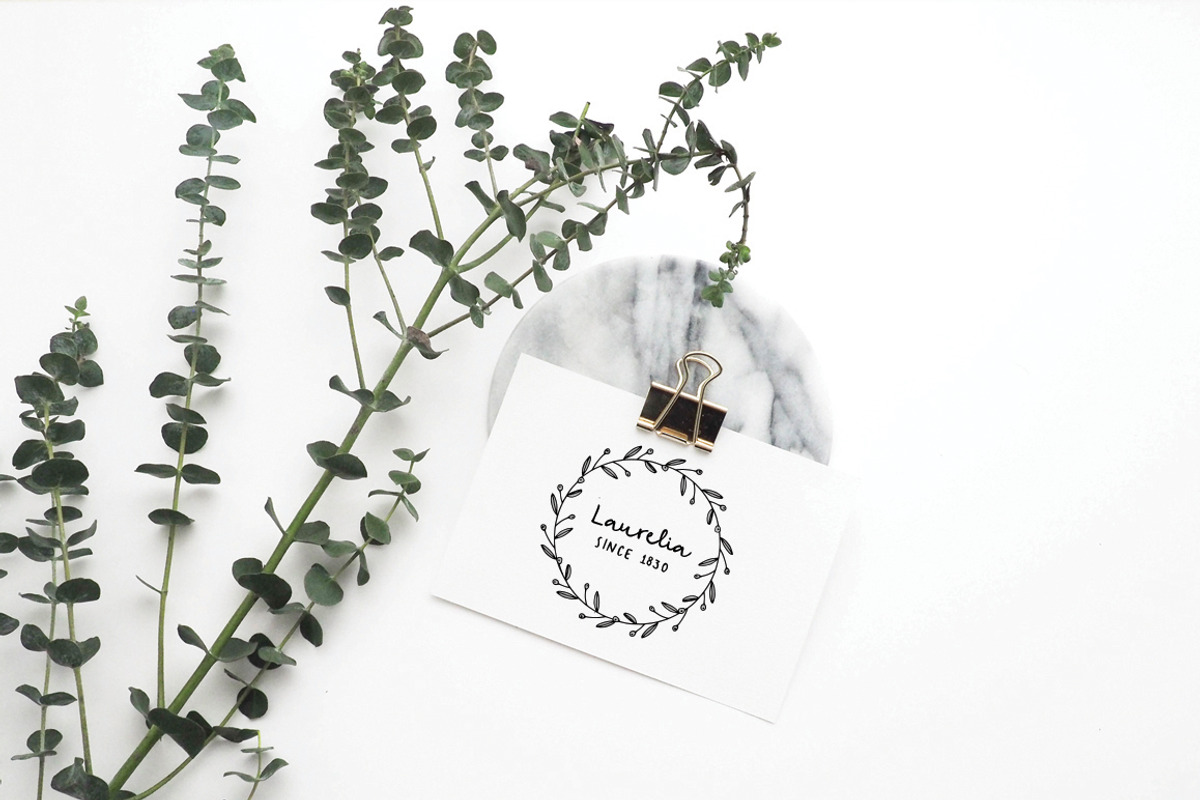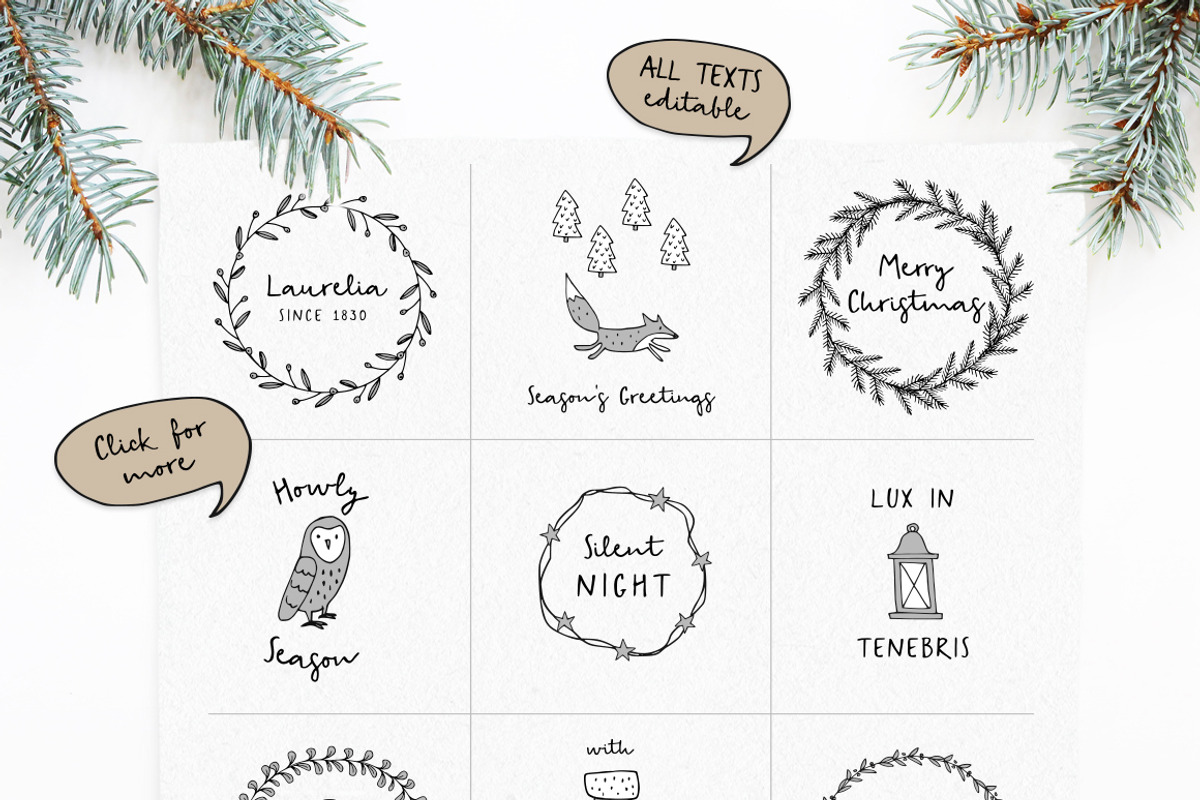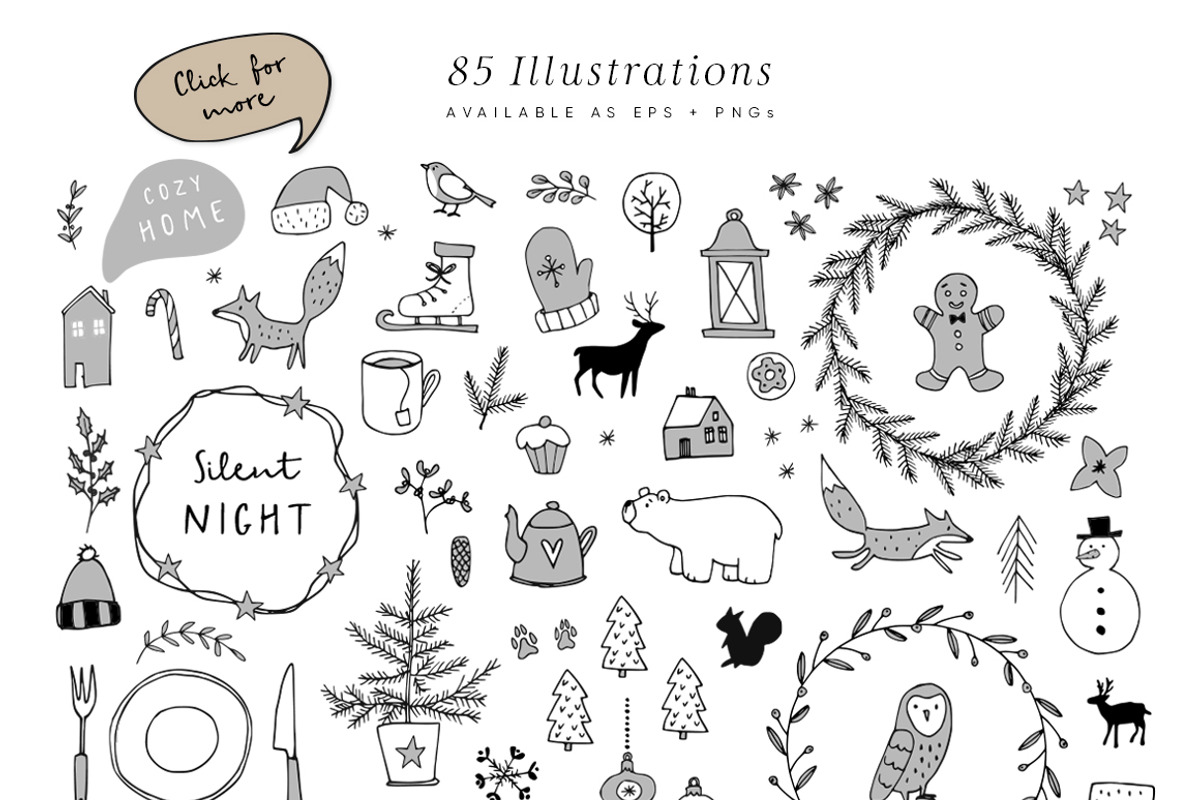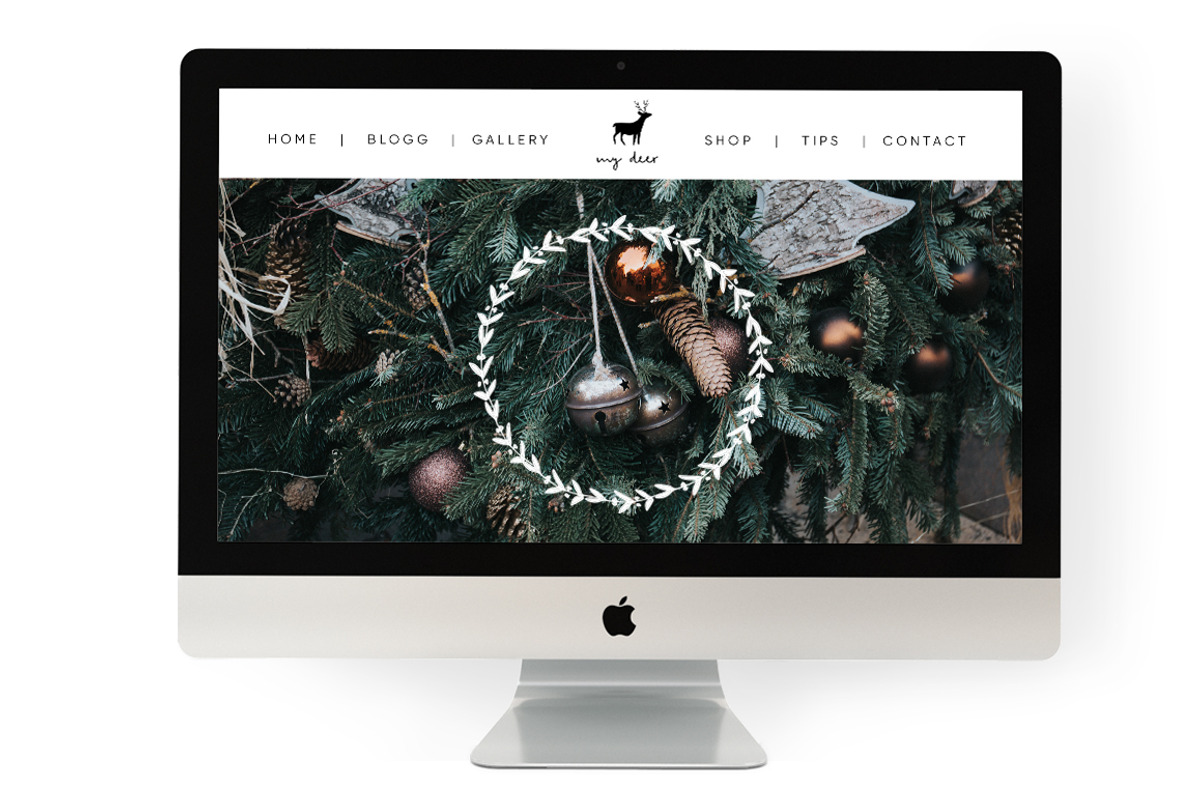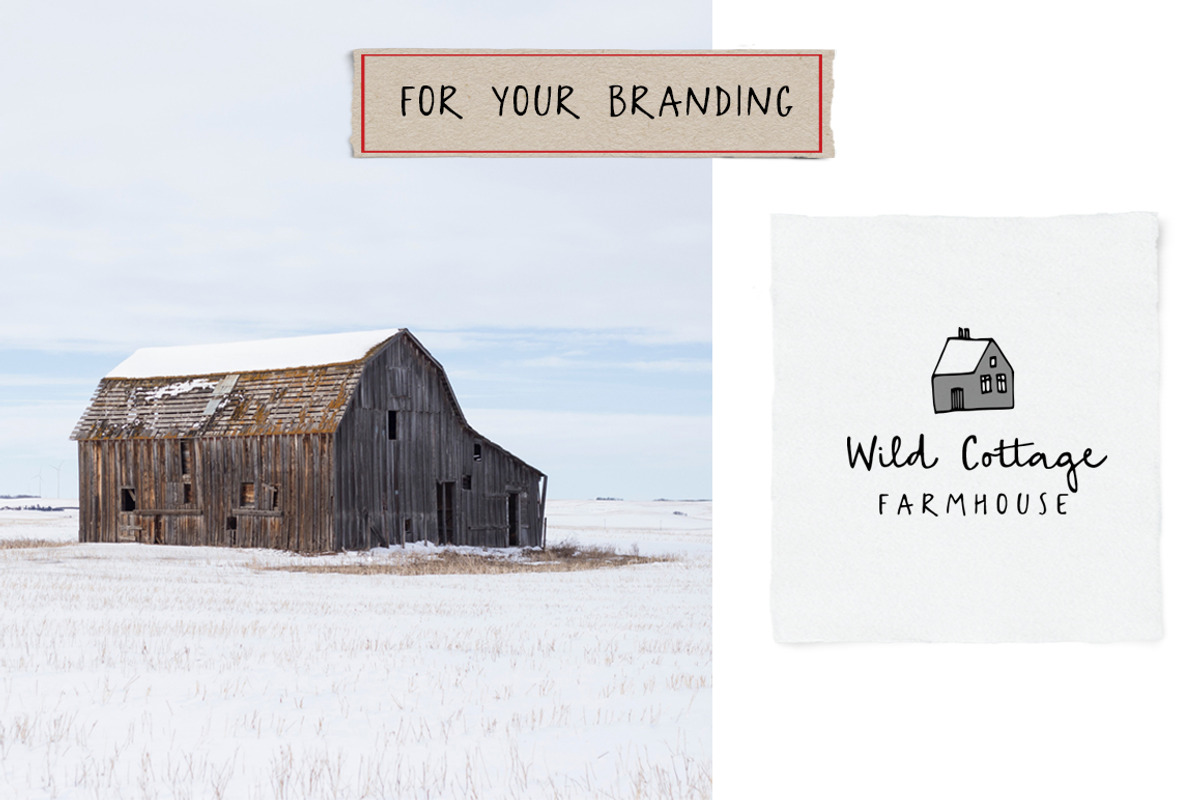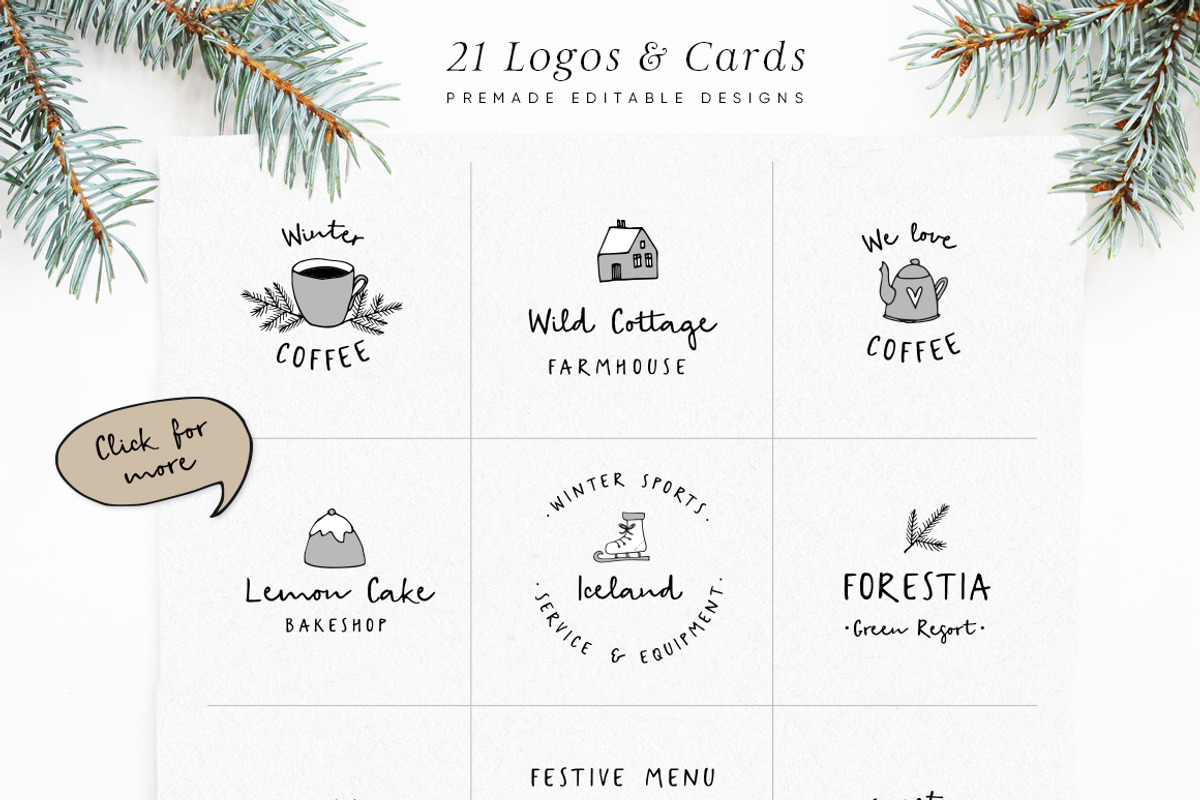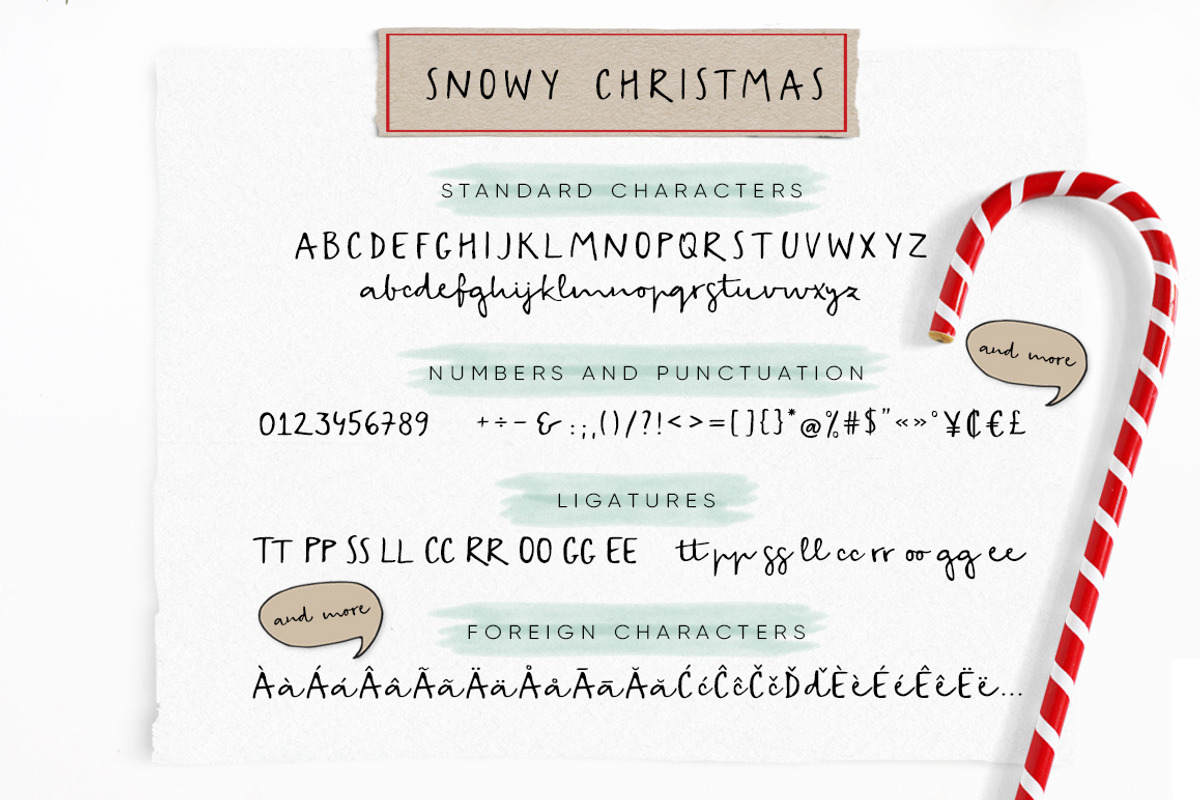
Snowy Christmas script & font logos
Let me introduce the Snowy Christmas collection - a cute script font with a bunch of winter inspired vector illustrations and pre-designed logos and greeting cards.
The set contain 106 BONUS elements. 85 Christmas doodles – just combine the graphic objects, that you like, with your text - the possibilities and variations are endless or you can use the fully editable 21 pre-made logo templates. With Snowy Christmas pack you can create your own logo, Christmas greeting cards, invitations or decorate your gifts, crafts or website in a minute!